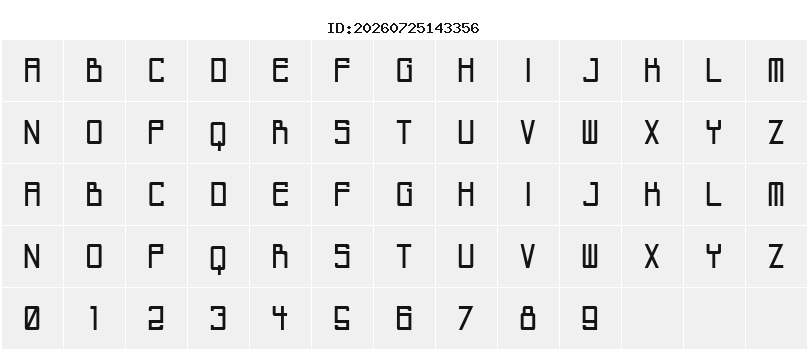
Invisble city Preview
• Font Name: Invisble city
• Full Font Name: Invisble city Regular
About Invisble city.ttf
Invisble city.ttf is a modern, elegant sans-serif font designed for ultimate readability and visual harmony. Perfect for branding, headlines, web design, and print materials.